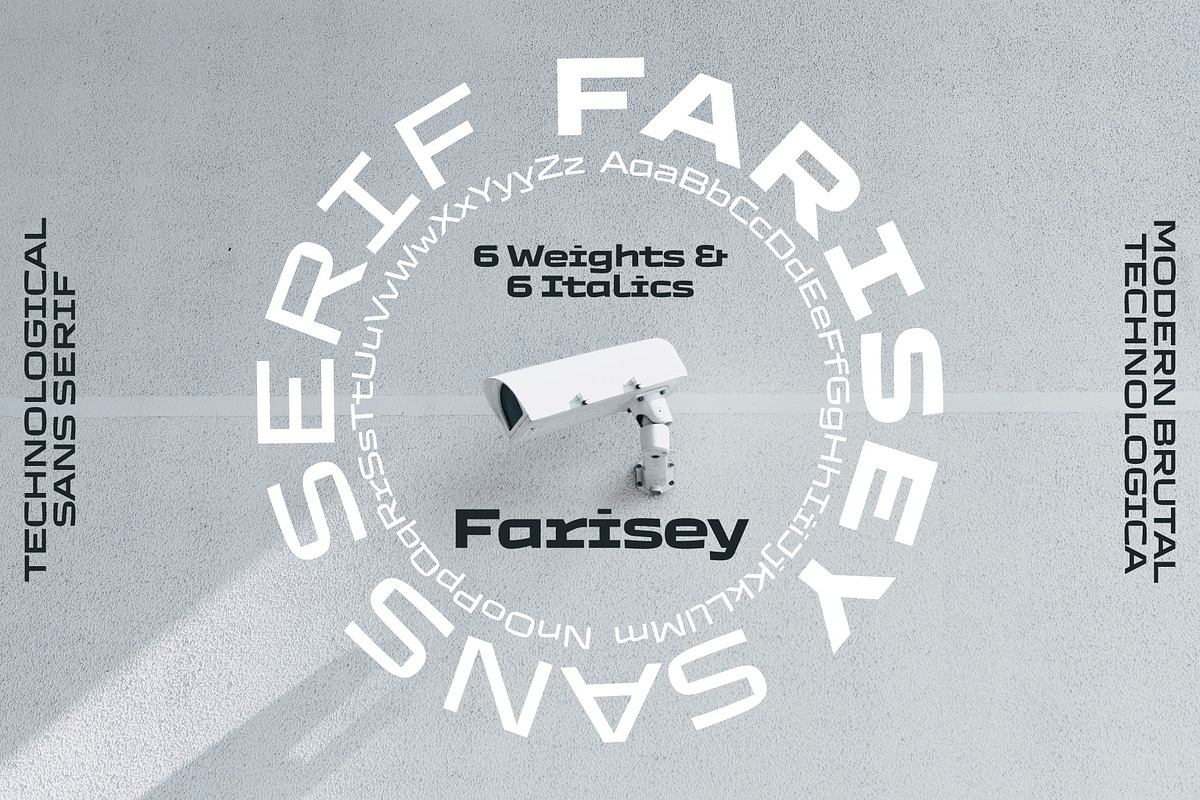
Farisey - Sans Serif Font Free Download is a clean and modern typeface designed to bring clarity and elegance to your designs. With its geometric lines and balanced structure, this font is perfect for a wide range of applications, including logos, branding, websites, editorial designs, and more. Its minimalist design ensures readability and professionalism, making it ideal for both creative and corporate projects. Whether you're creating a modern brand identity or crafting sleek promotional materials, Farisey - Sans Serif Font Free Download offers versatility and style in your designs. Test it in personal projects before purchasing a commercial license and elevate your work with this sleek sans serif font.